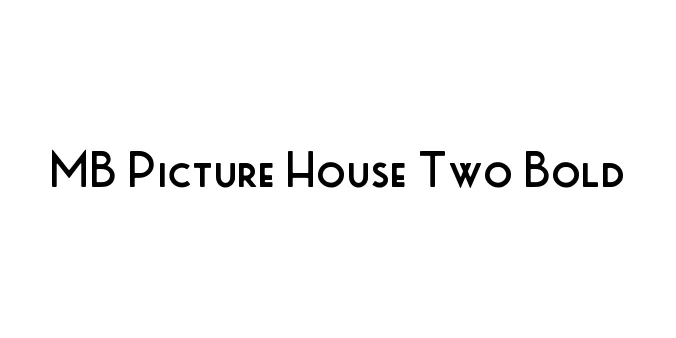
MB Picture House Two Bold
Designed by Ben Mitchell (M-B Creative)
| Category | Display / Art Deco |
| Designer | Ben Mitchell (M-B Creative) |
MB Picture House Two Bold is a sophisticated display typeface that draws its primary inspiration from the Art Deco aesthetic of early 20th-century cinema. Created by Ben Mitchell, this font captures the geometric elegance and theatrical flair of the 1930s, making it a standout choice for projects that require a sense of historical luxury and cinematic history.
The Bold weight of this family is specifically engineered for high-impact visual communication. Featuring thick, stable strokes and narrow apertures, it provides a strong vertical rhythm and a clean, modern take on vintage signage. It is an evolution of the original MB Picture House series, refined with improved proportions and glyph construction for contemporary digital environments.
MB Picture House Two Bold Best Uses
Ideal for striking, high-impact titles in magazines and editorial layouts.
Perfect for creating luxury or heritage-focused brand identities with a retro feel.
Excellent for theatrical posters, jazz festivals, and vintage-themed event promotions.
Adds a sophisticated and authoritative touch to digital advertising and landing pages.